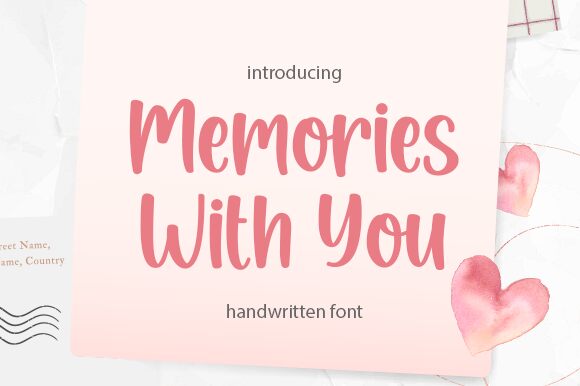
Memories With You
Welcome to Memories With You, a beautiful handwritten font designed by Aldi Raya Pradipta. Perfect for everything from wedding invitations to social media posts, this script font is sure to make any project special! Its romantic style makes it ideal for branding projects, quotes, and other heartfelt designs.